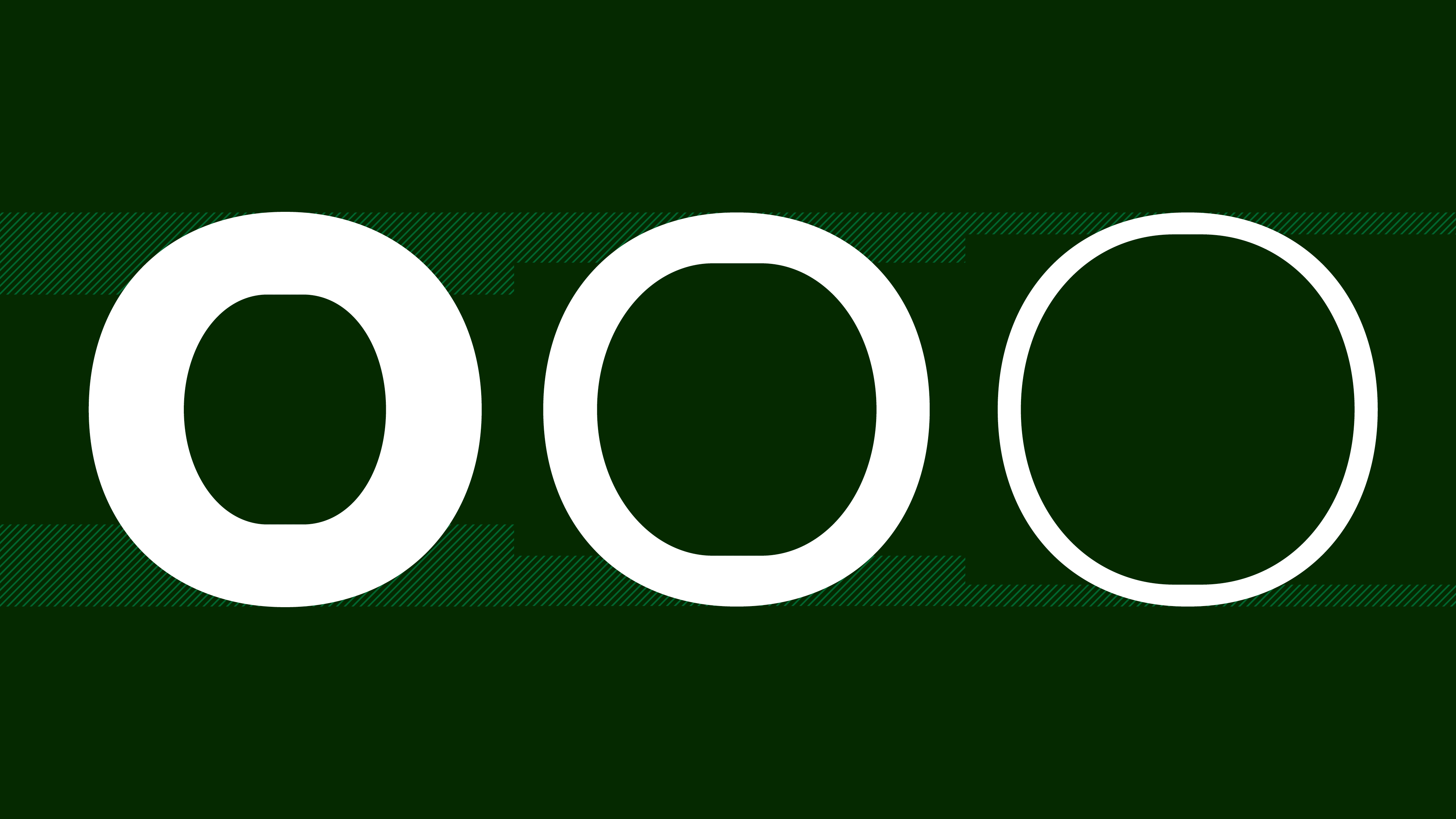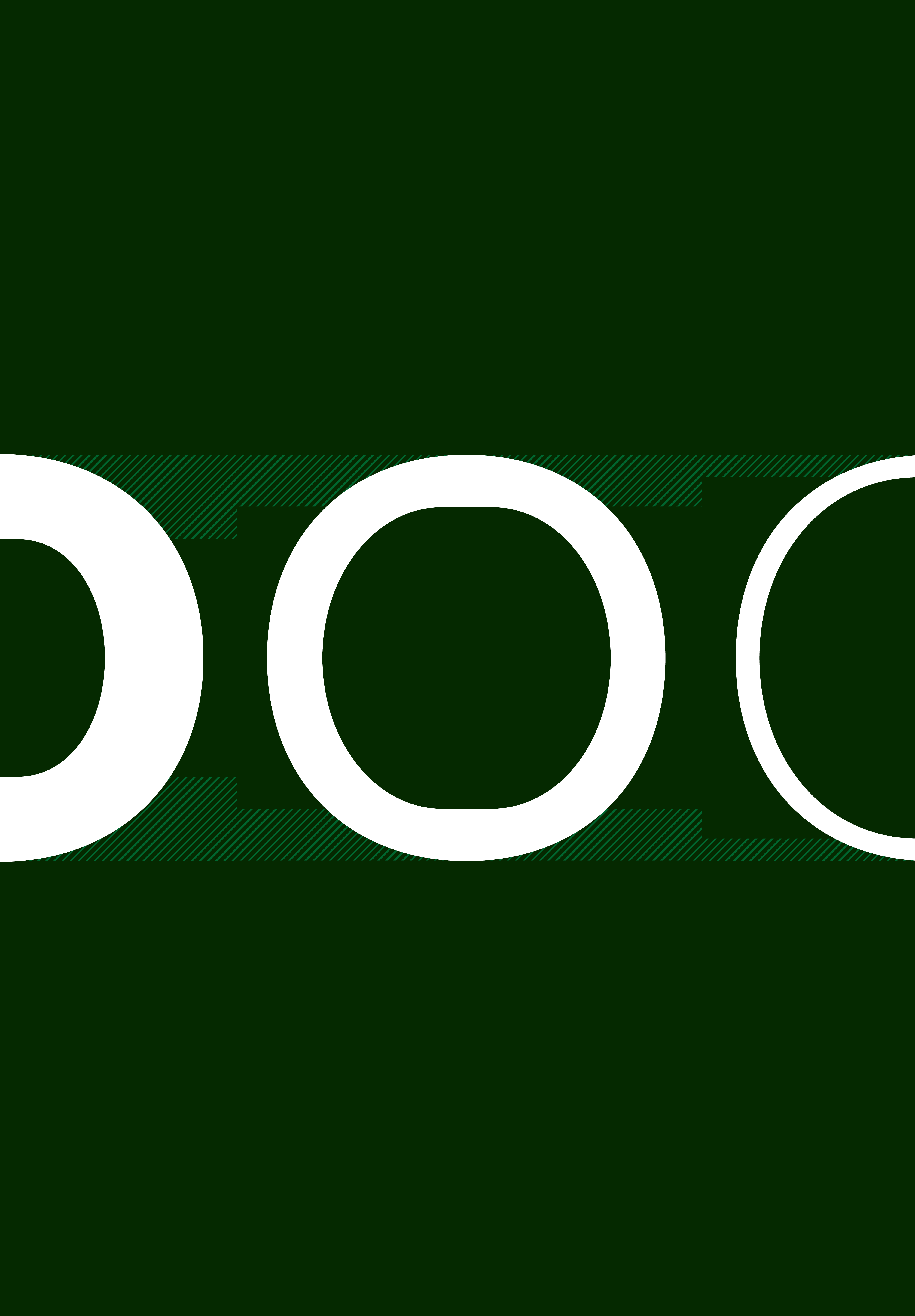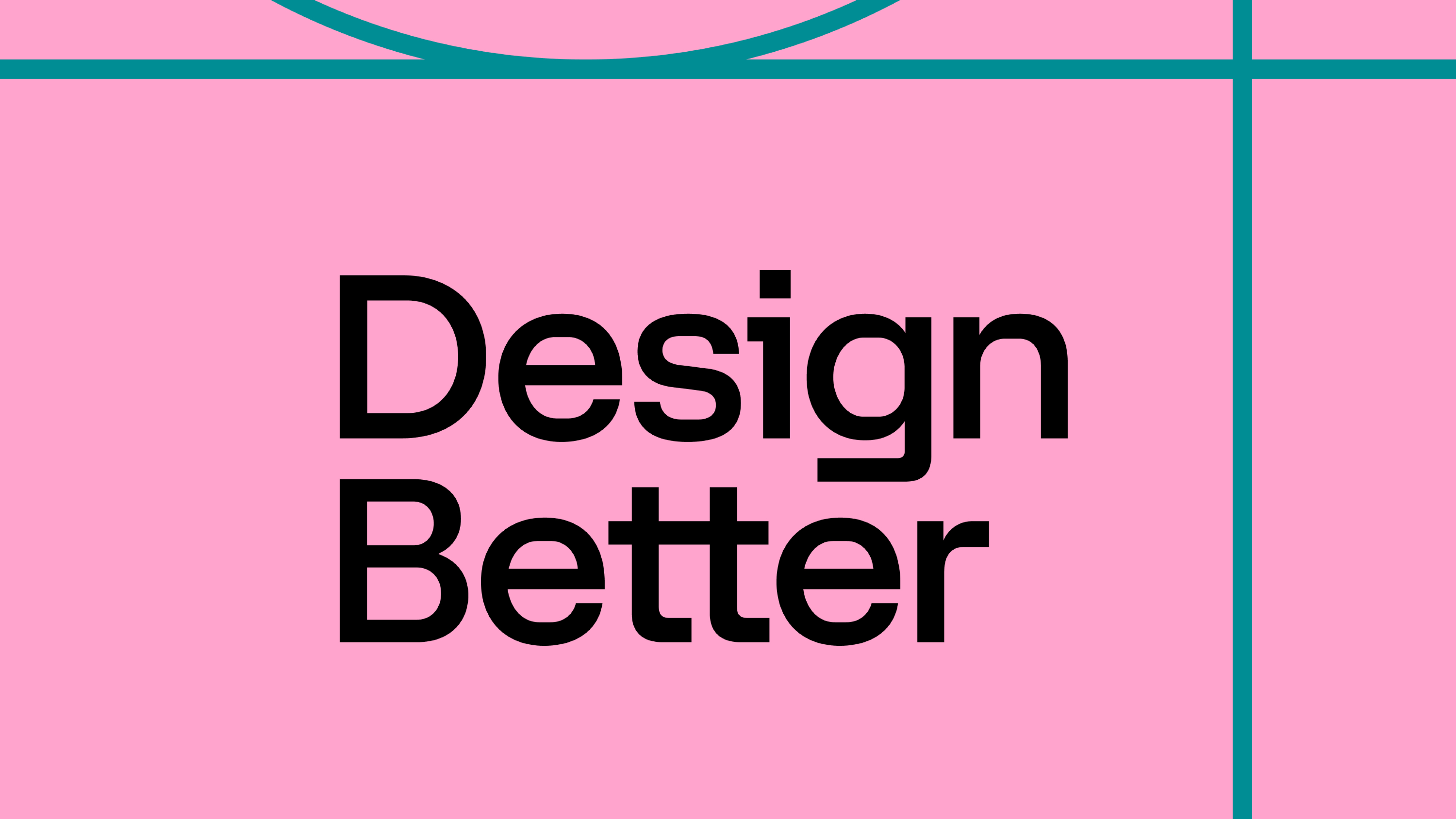
F37 Lineca®
In a spirit of experimentation and creating something totally unique, we introduced a straight, horizontal line into every single letterform. Even the (traditionally) round ones.
Remember one line cannot exist alone; it always brings a companion along.